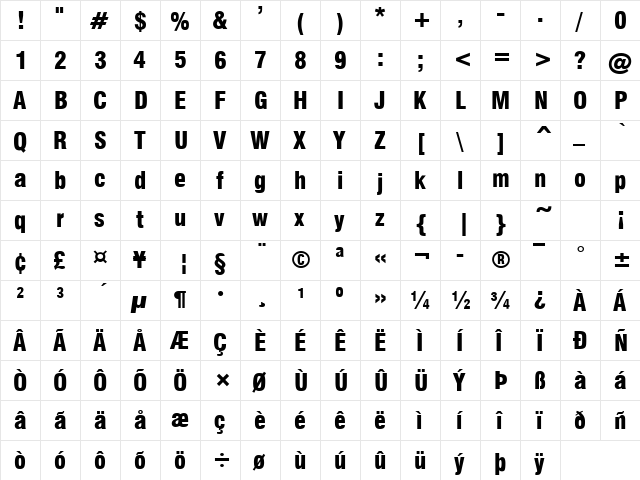
Corporate Black Black
Design Context for Corporate Black Typeface
Corporate Black is a composed and adaptable typeface that performs quietly and consistently across a wide range of design contexts.